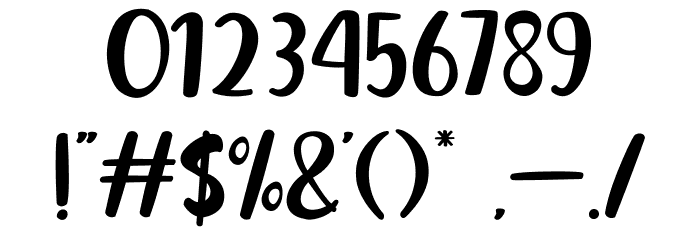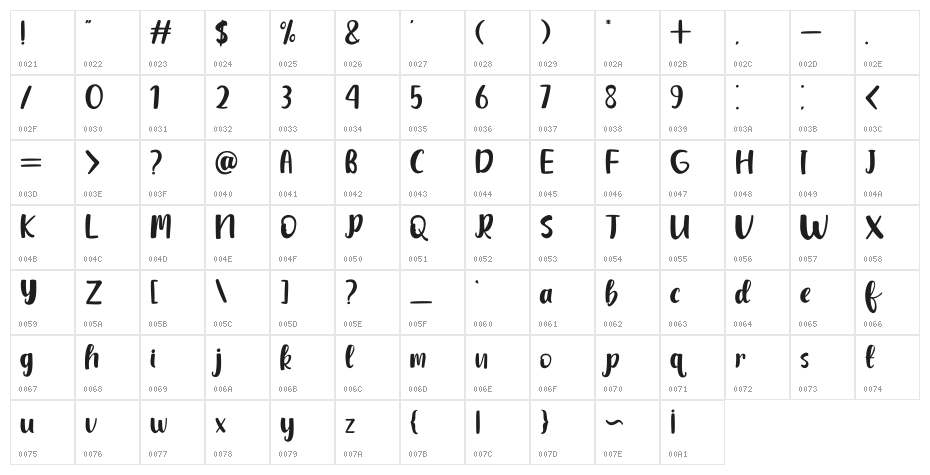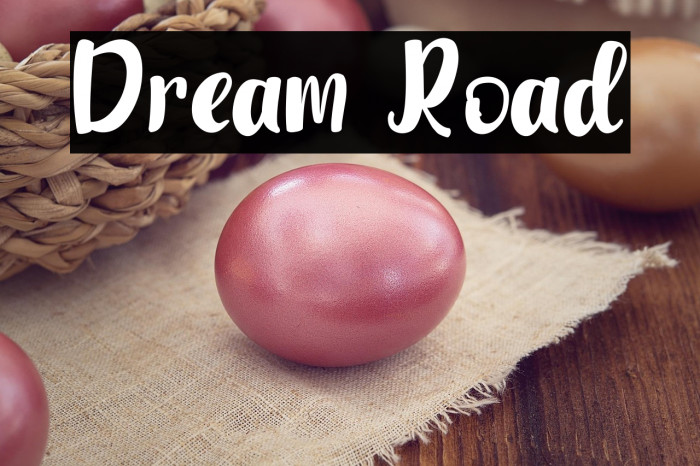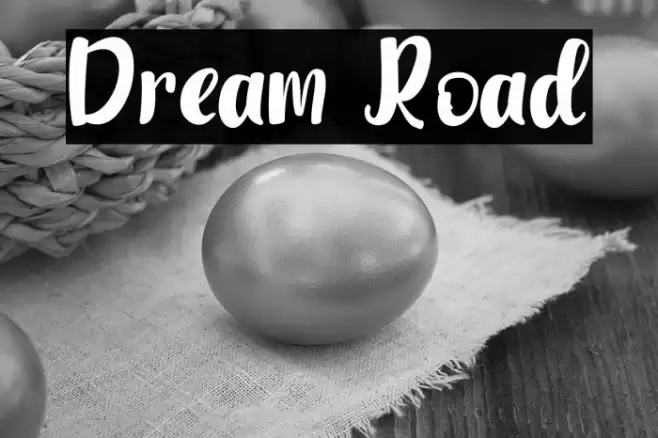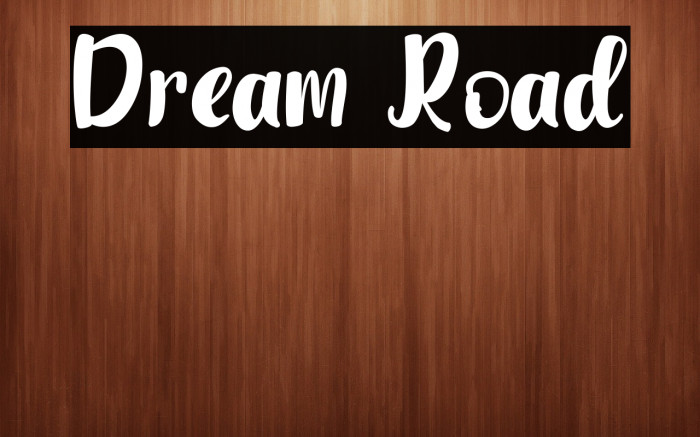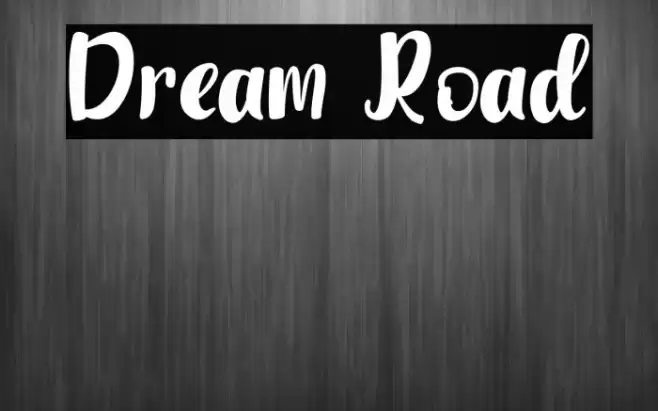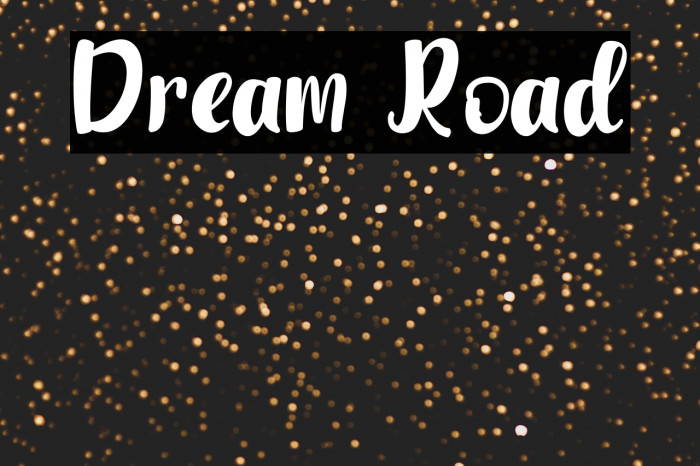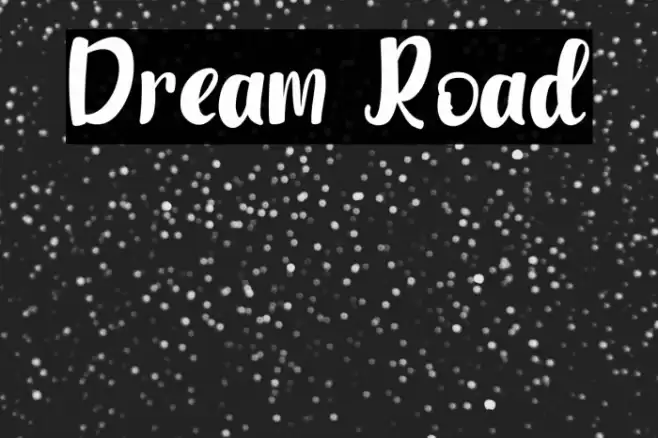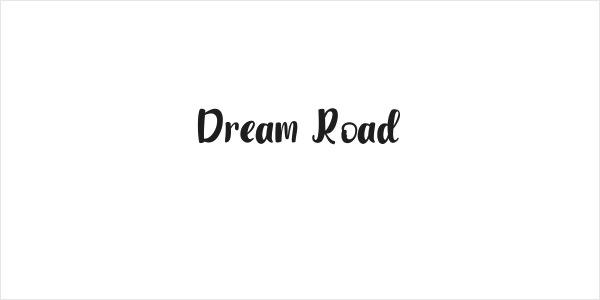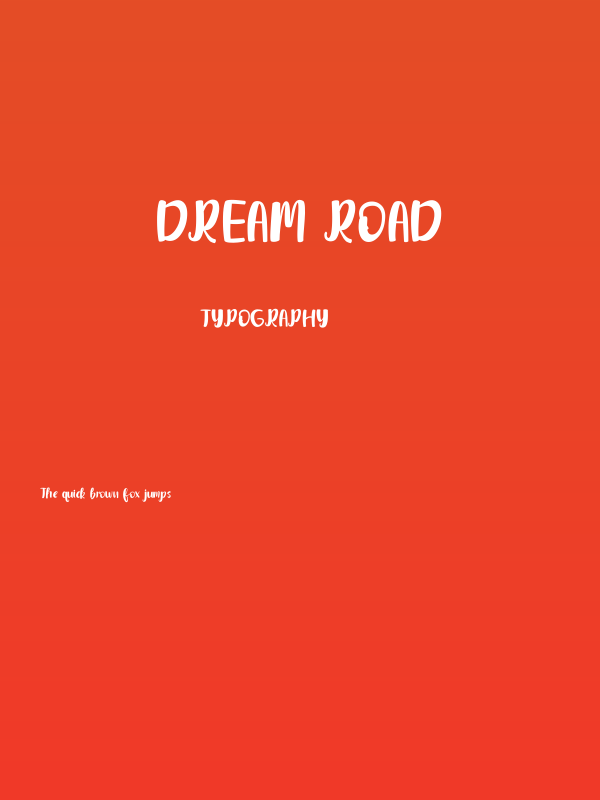
Dream Road Font
Dream Road Description
This font features a playful and bold handwritten style, characterized by its smooth curves and slightly irregular shapes that give it a casual and friendly appearance. The uppercase letters are tall and rounded, while the lowercase letters maintain a consistent flow with a slight slant, adding to its informal charm. The numbers and special characters follow the same whimsical design, making it versatile for various creative projects. The strokes are thick, providing a strong presence, yet the overall look remains approachable and fun. This font is ideal for projects that require a personal touch, such as invitations, greeting cards, or playful branding.